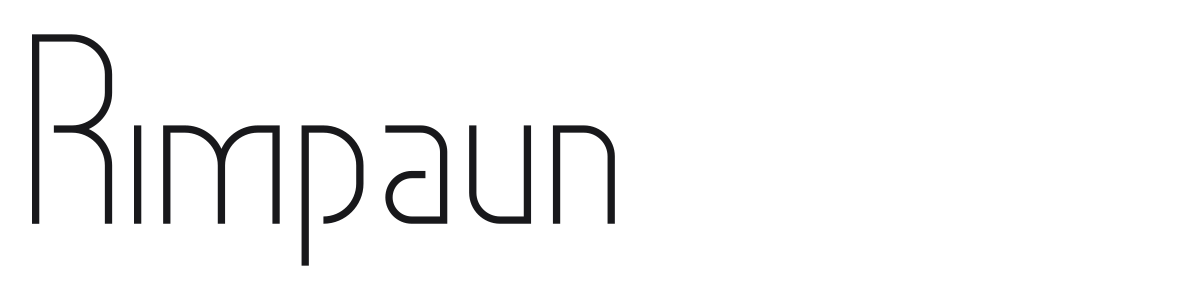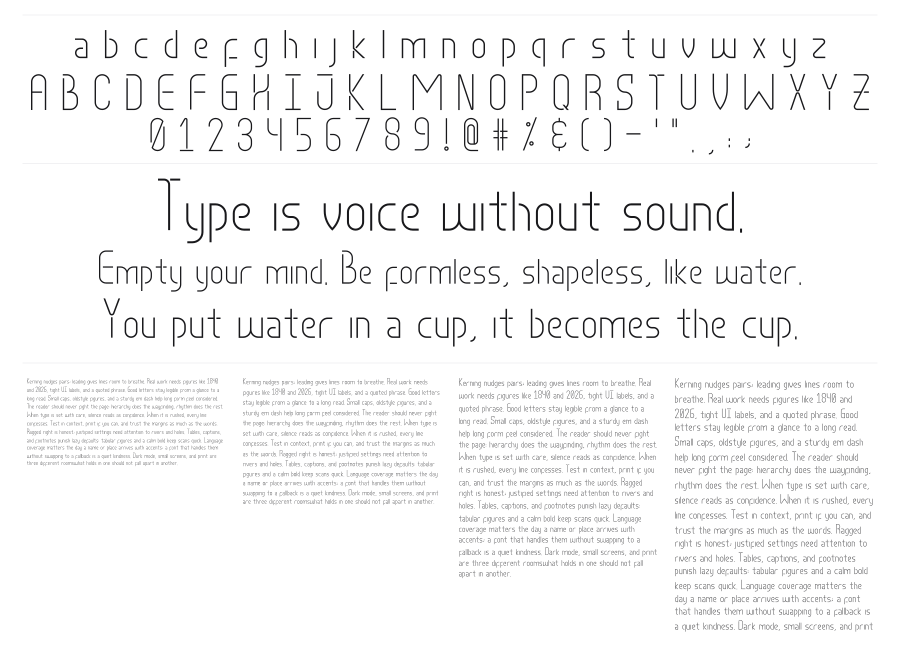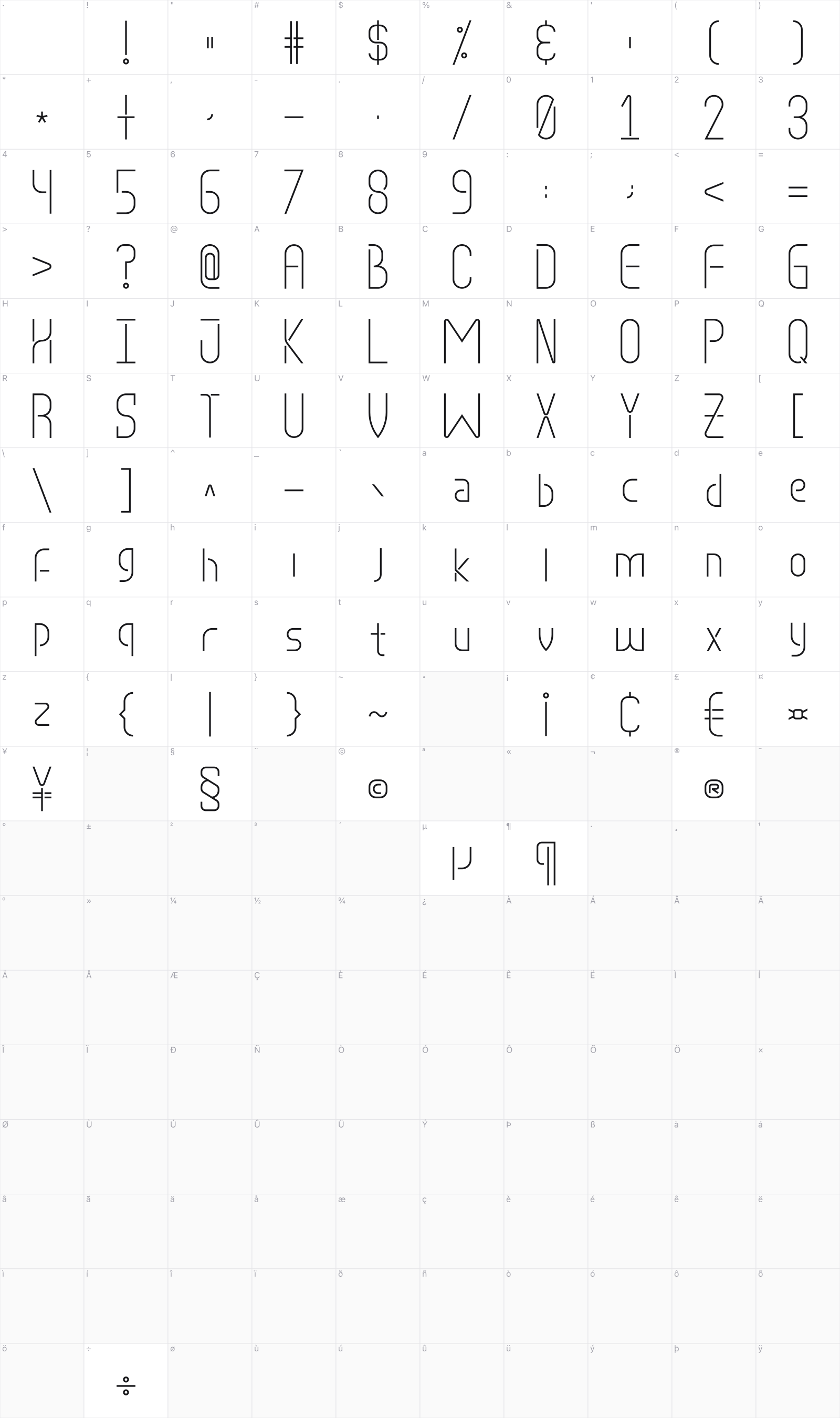
Rimpaun
Rimpaun is a thin geometric sans with soft rounded terminals and a calm, airy presence. Its open apertures and near-monoweight strokes give it a quiet modernism that works well at large sizes in branding, editorial, and packaging contexts. The subtle quirks in certain characters keep it from feeling generic.